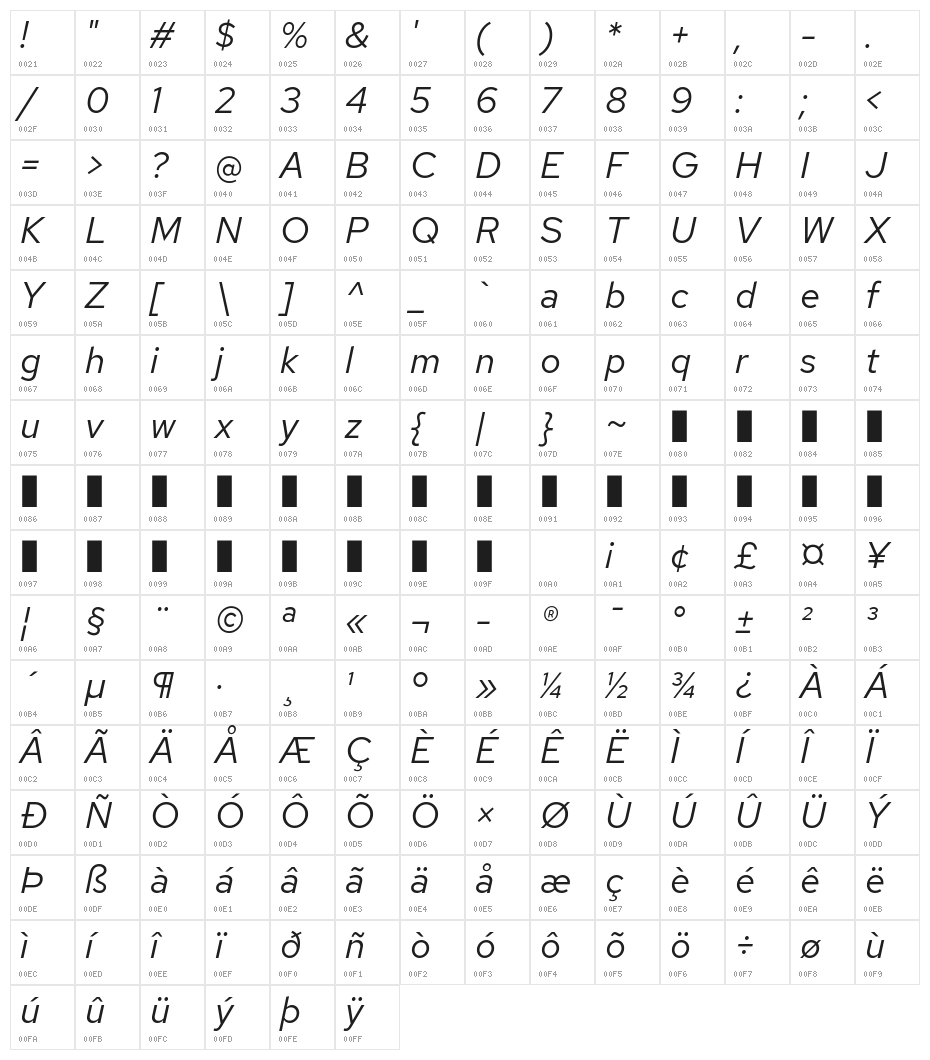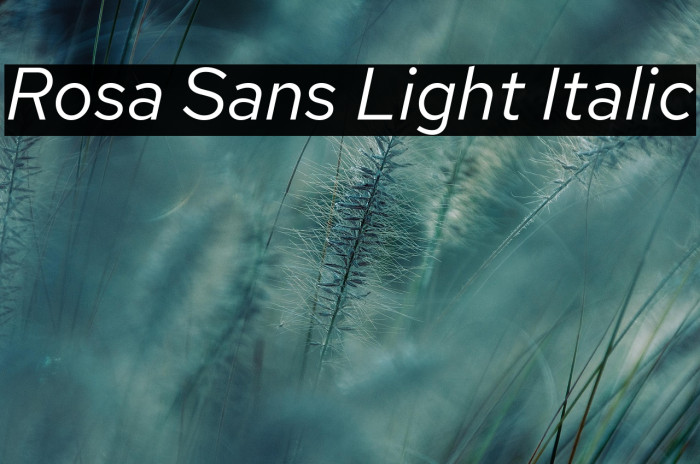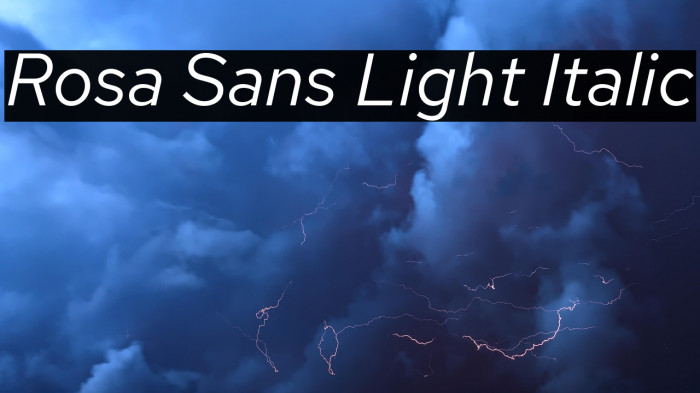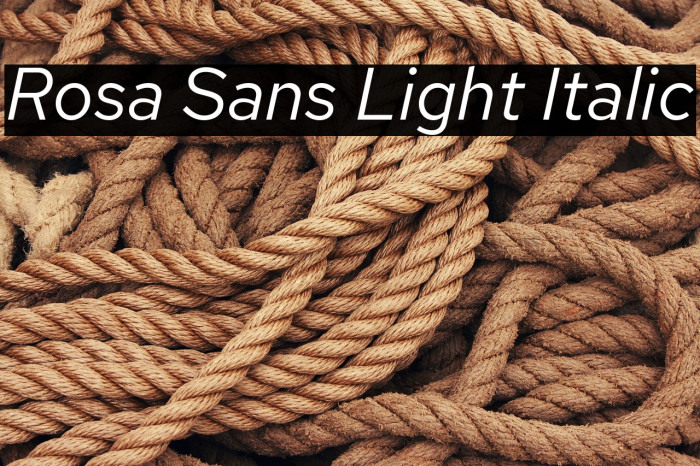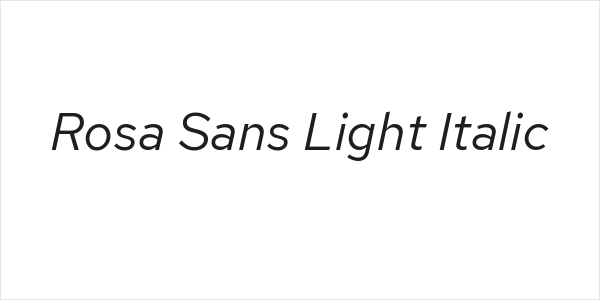
Rosa Sans Light Italic Font
Rosa Sans Light Italic Description
This font features a sleek and modern sans-serif design with a light weight and italic style. The characters are slightly slanted, giving a sense of motion and elegance. The strokes are consistent and smooth, with a low contrast between thick and thin lines, contributing to its clean appearance. The spacing between characters is normal, ensuring readability and a balanced look. This font is versatile, suitable for a variety of design projects that require a contemporary and sophisticated touch.
| Proposed Projects | Ideal for branding, editorial design, websites, and advertising materials where a modern and elegant look is desired. |